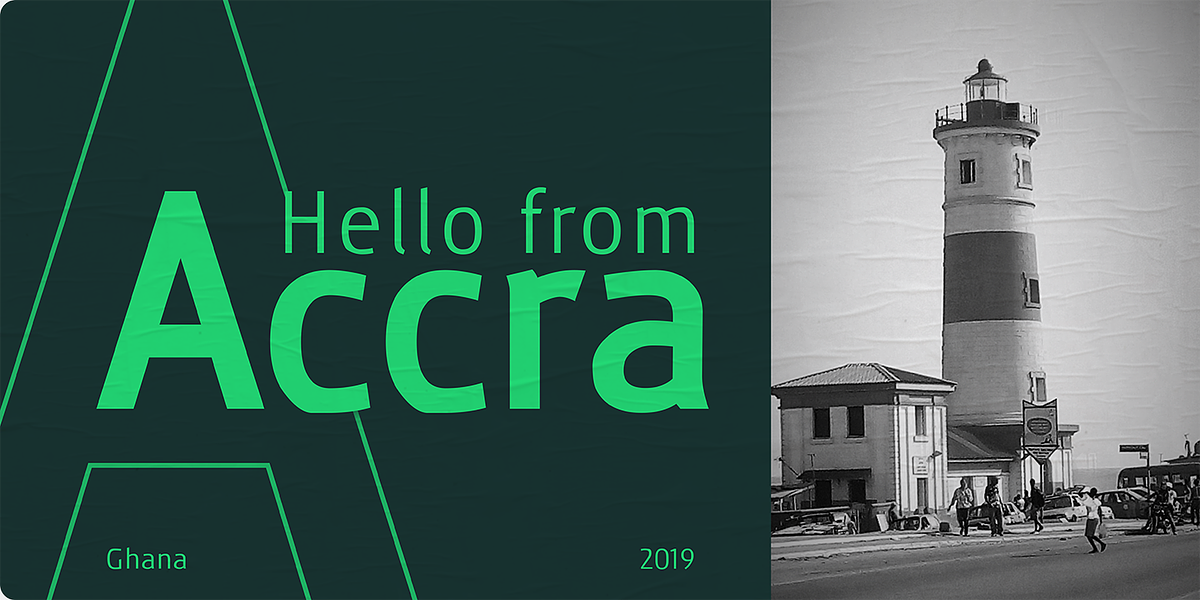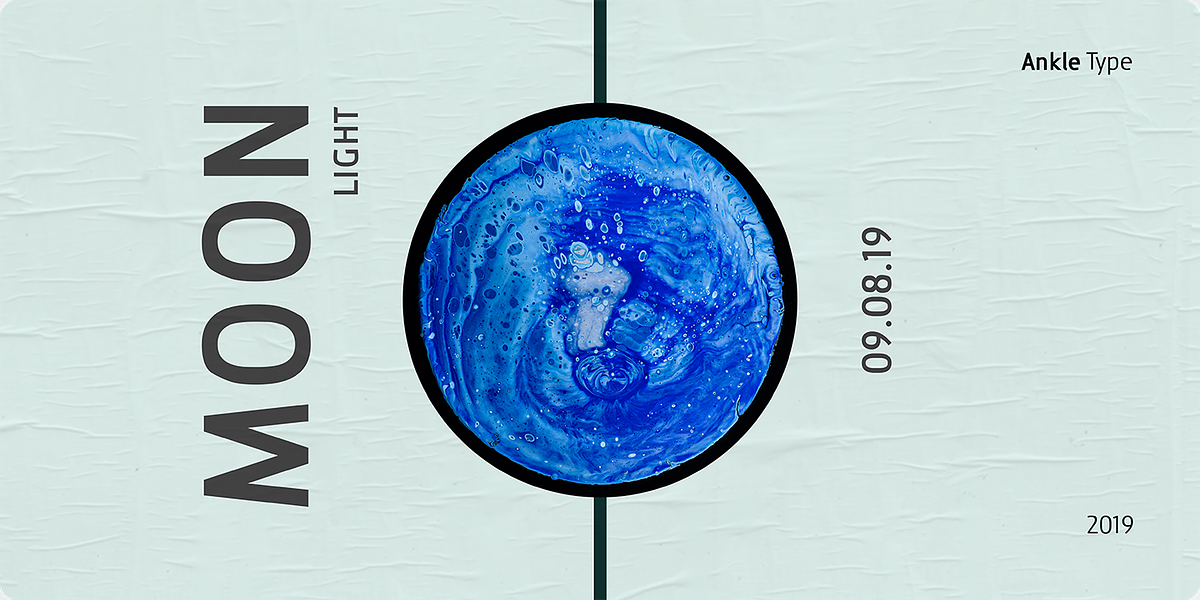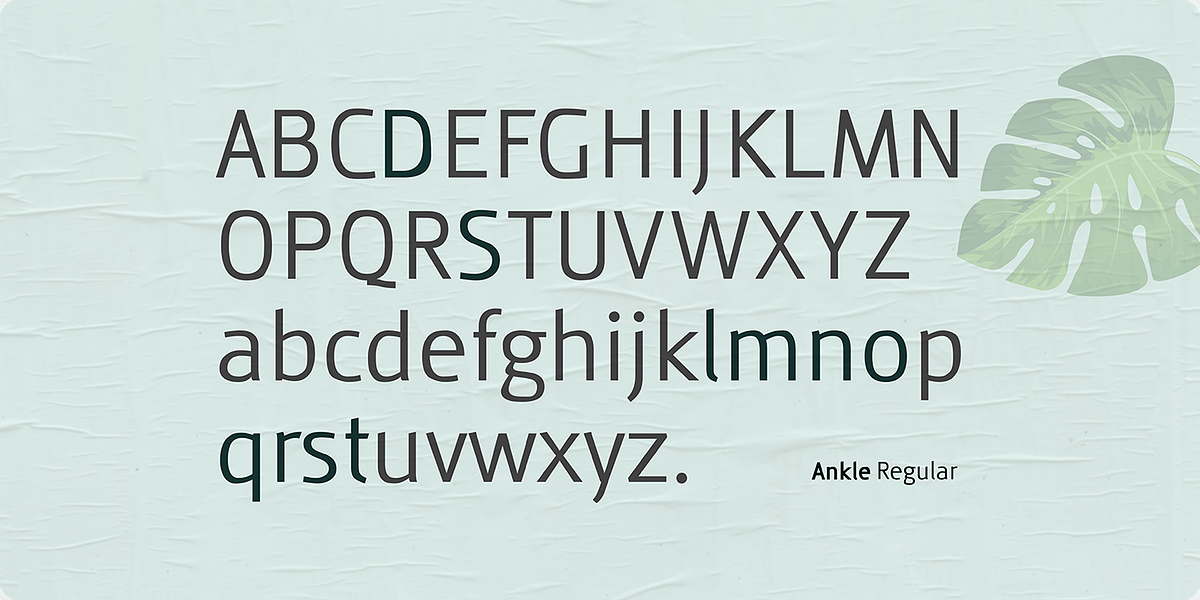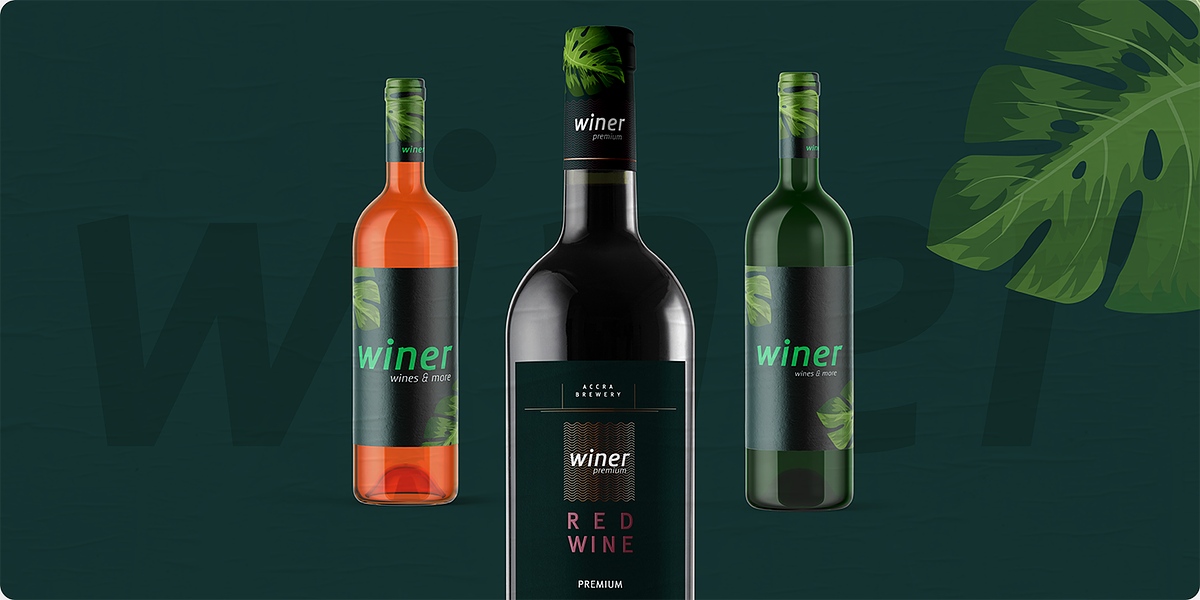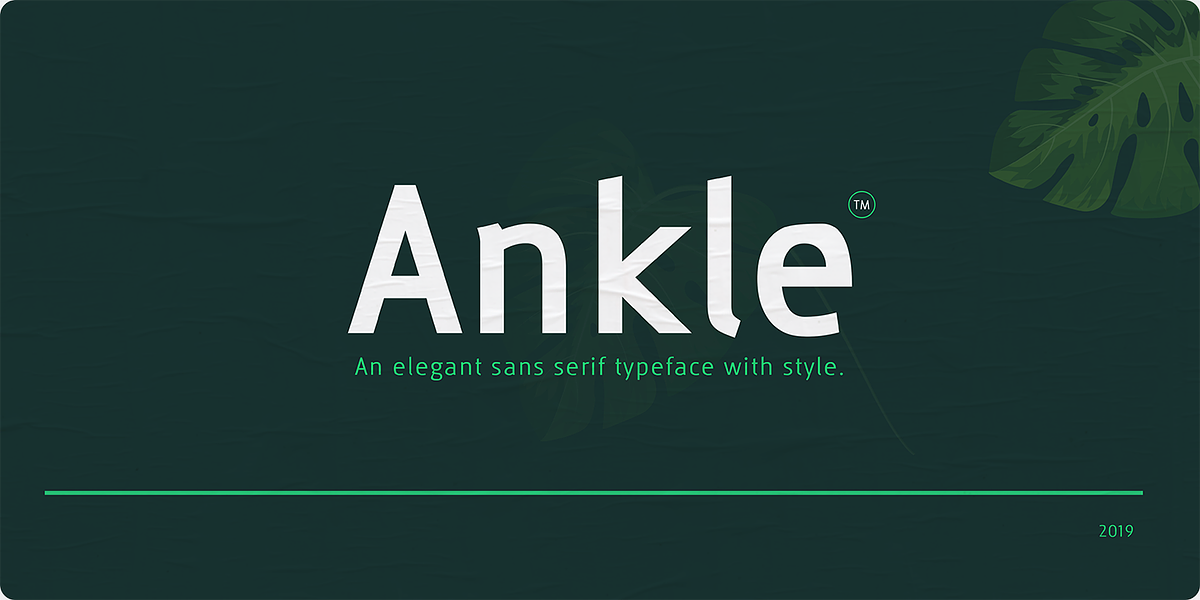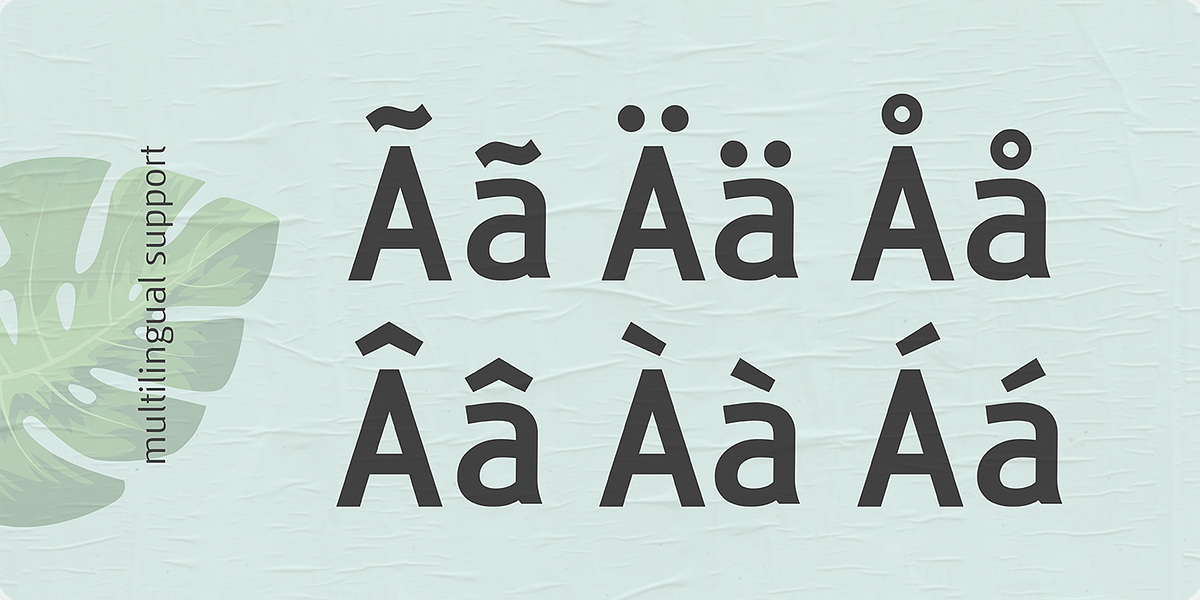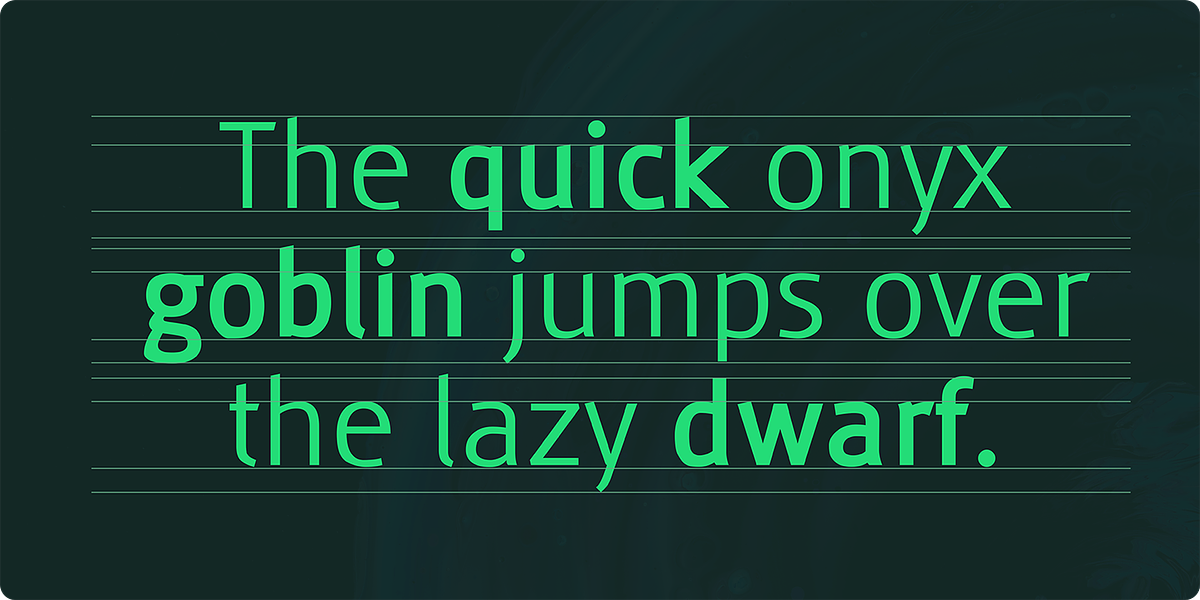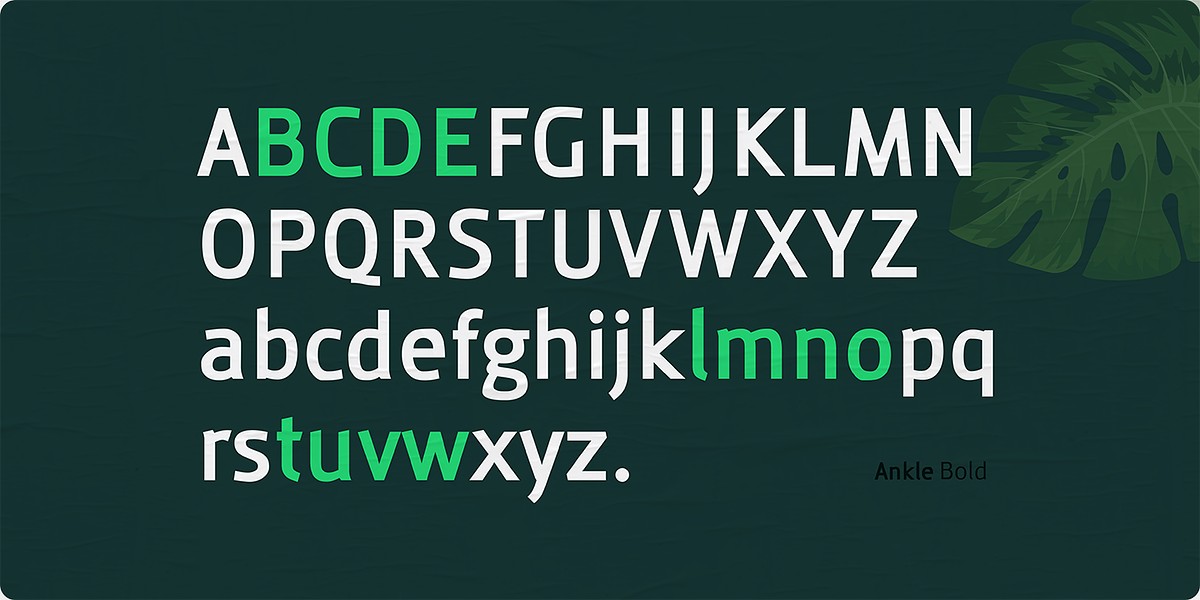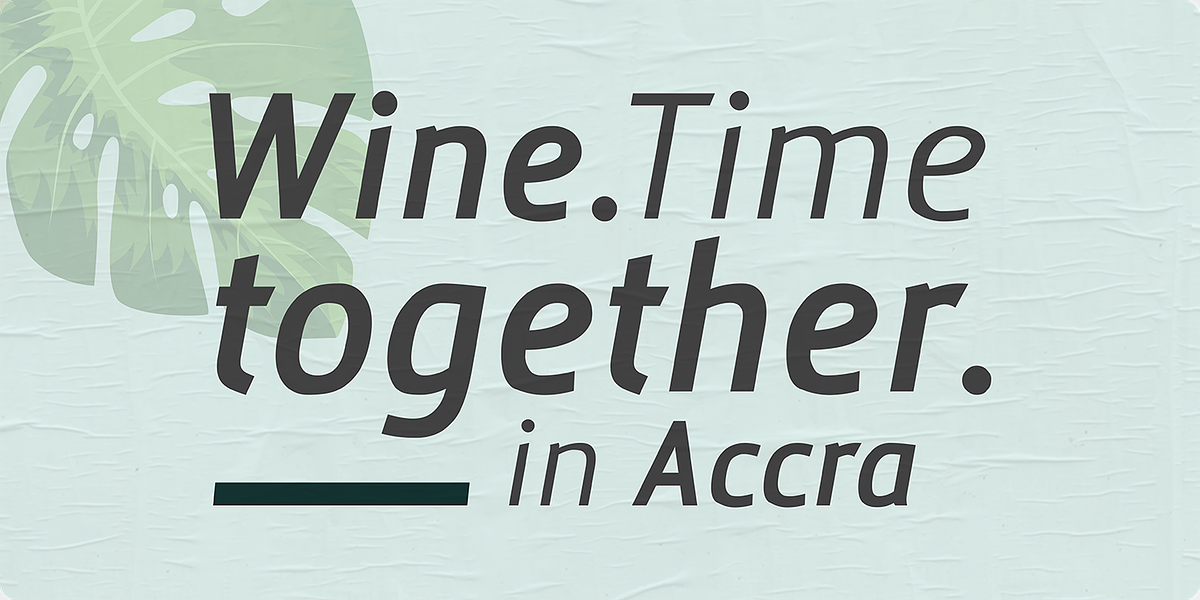
Ankle
This humanist sans serif typeface is designed to be both elegant and modern. Its clean lines and subtle curves make it suitable for a variety of uses, including logos, posters, and branding materials.